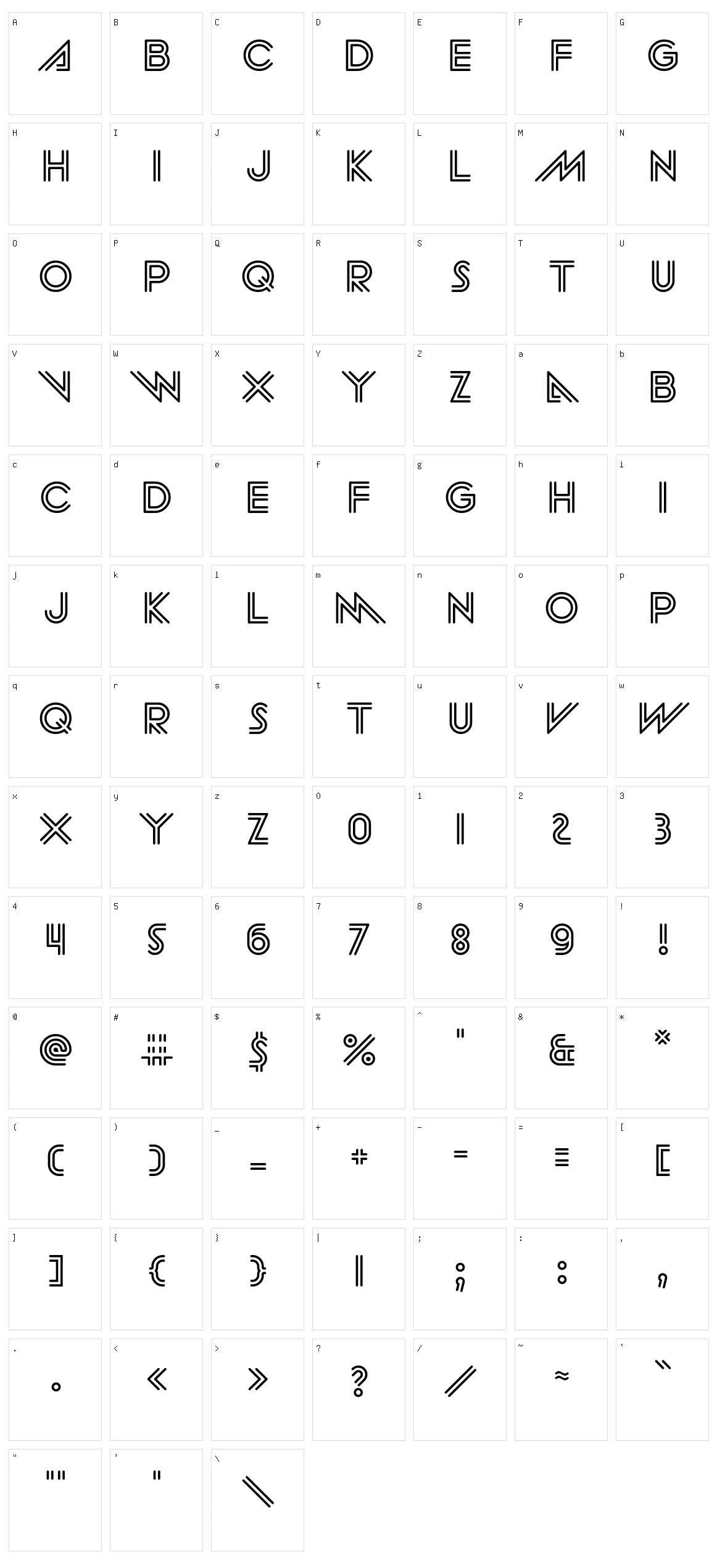
The free font Ankh Sanctuary is carefully designed by Chequered Ink, showcasing a thoughtful balance of creativity and usability and falls under the Groovy font style. When you download the ZIP file, it contains only 27.98 KB of font files, making it lightweight and quick to download. Please review the license details below to understand permitted usage and distribution rights. If license information is not available, we recommend using this font for personal projects only or contacting the author directly for commercial usage permissions.